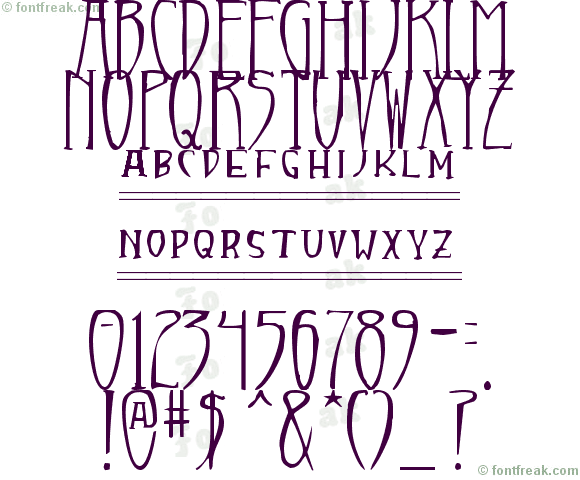
Greywolf Nouveau
Greywolf Nouveau is a distinctive display font designed by T. Jordan "Greywolf" Peacock, characterized by its unique blend of art nouveau influences and modern design elements. As a display typeface, it commands attention with its bold, stylized letterforms that evoke a sense of creativity and artistic flair. The font features a striking contrast in stroke weight, with thick lines juxtaposed against slender, elegant curves, making it visually captivating. The spacing between characters is thoughtfully considered, providing a balanced appearance that enhances legibility while maintaining an artistic edge. Decorative elements, such as swirling serifs and intricate ligatures, lend a whimsical quality that is reminiscent of the early 20th-century art movements.
This font is particularly well-suited for a variety of creative applications. It excels in wedding invitations, where its romantic and sophisticated style can add a touch of elegance. Movie posters can benefit from Greywolf Nouveau’s dramatic flair, effectively capturing the essence of the film's theme or genre. Additionally, the font is perfect for restaurant menus, providing an artistic presentation that enhances the dining experience. Small business owners looking to create unique branding materials will find Greywolf Nouveau to be an excellent choice for logos and promotional content.
Targeted towards graphic designers, content creators, and small business owners, this font brings a fresh voice to any project. The Greywolf Nouveau font free download offers an accessible opportunity for creatives to incorporate this exquisite typeface into their work without financial constraints. Its standout features, including its artistic design and versatility, make it a remarkable addition to any designer's toolkit, ensuring that your projects will leave a lasting impression.